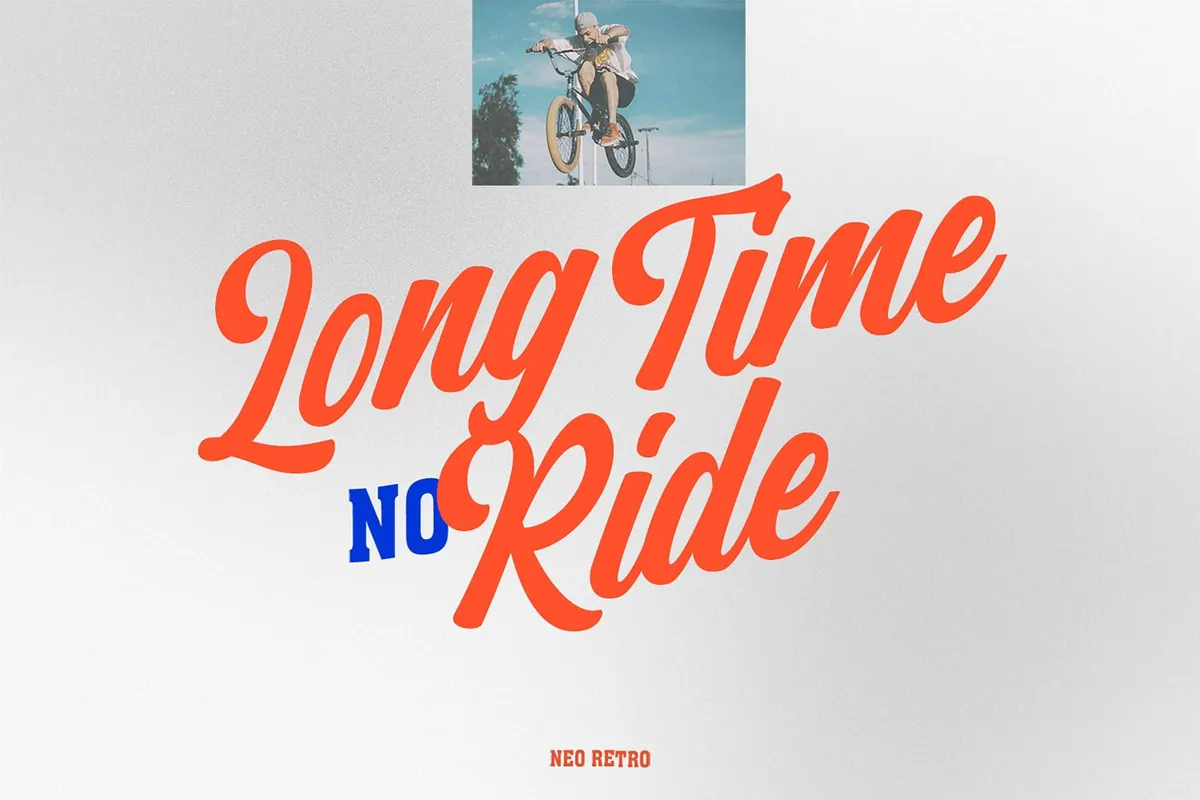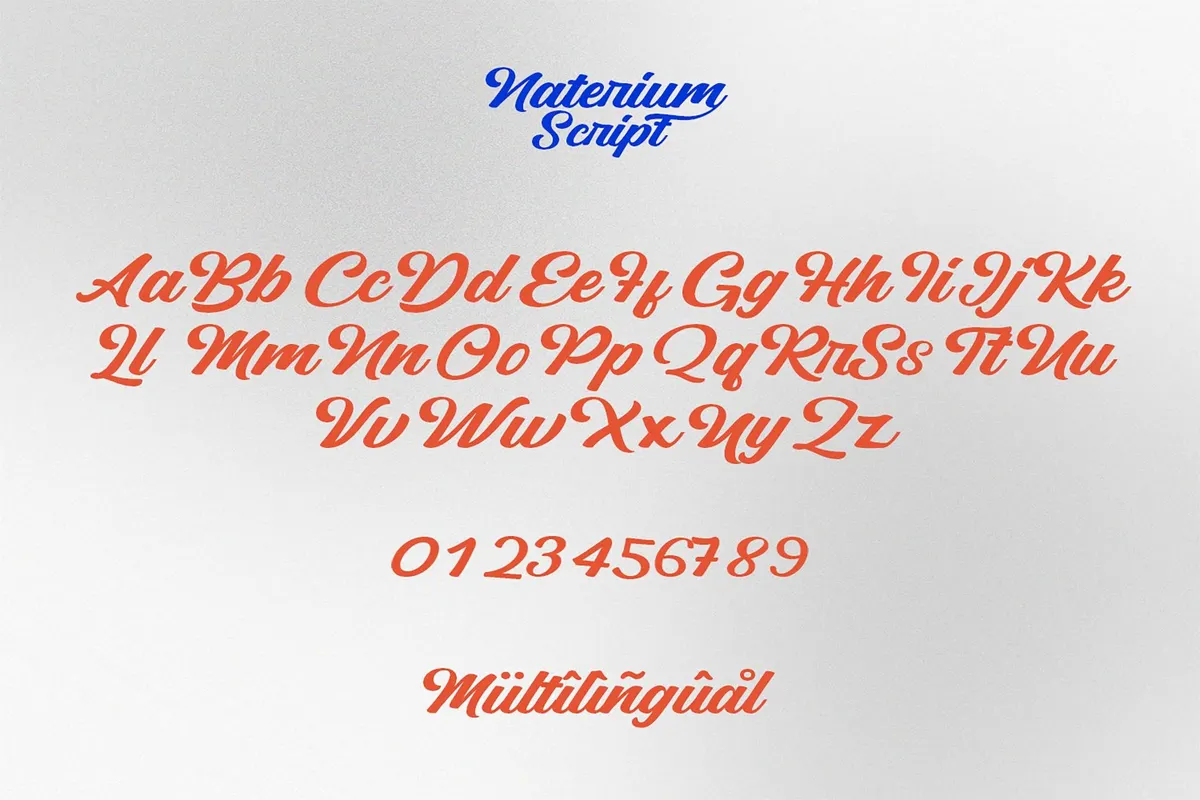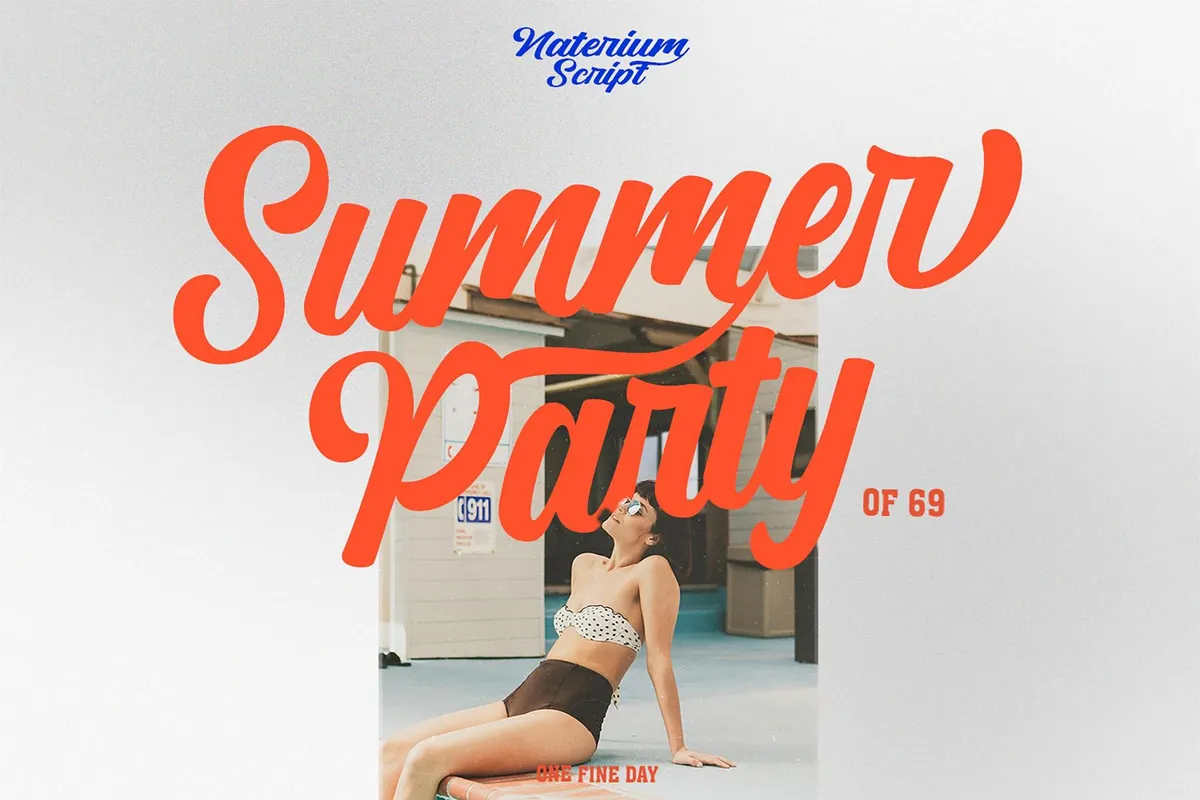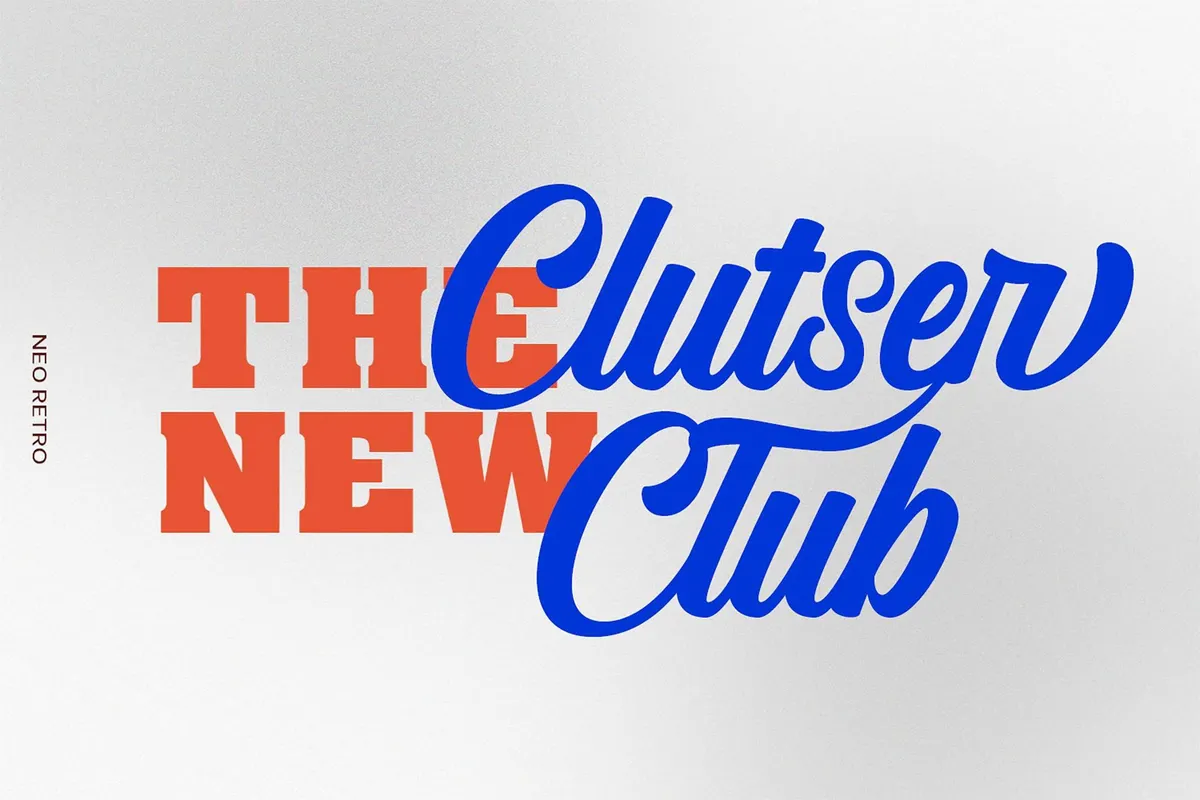
Naterium — Retro Script Font
Brew your coffee, get the toasts: we're back to classic American diner with Naterium font. It's all made of a solid retro vibe, evoking 1950s and 60s hand-lettered signages or iconic club and sports logos from those decades.
In fact, Naterium is so retro that no other type can beat it. This smooth, bold script recalls the vintage branding style of soda shops, car culture, and even old-school baseball teams — something you'd expect to see on the side of a classic convertible cruising through a town square. The set has upper and lowercase letters, symbols, punctuation, numerals, alternatives, and ligatures. Each character is drawn with love for typographic legacy, so you can create a bold, nostalgic piece of yours, from music album covers to retro logos.